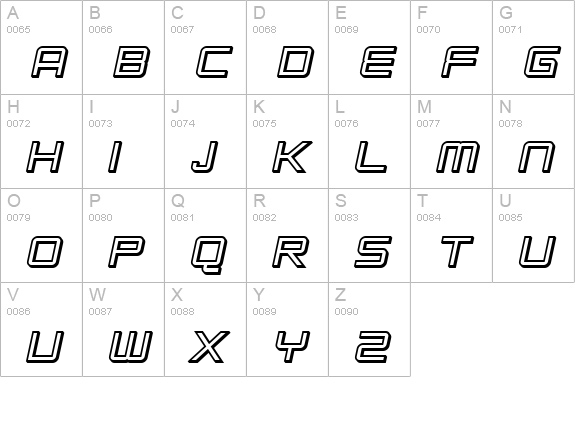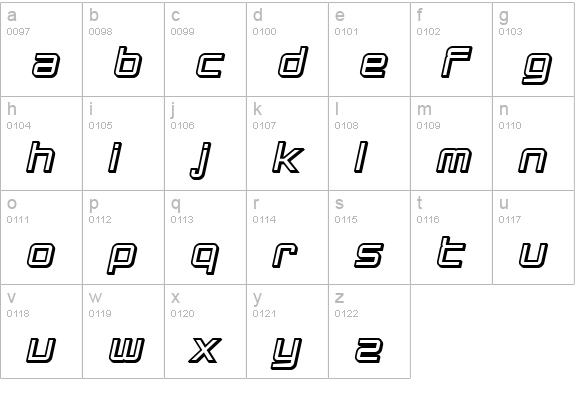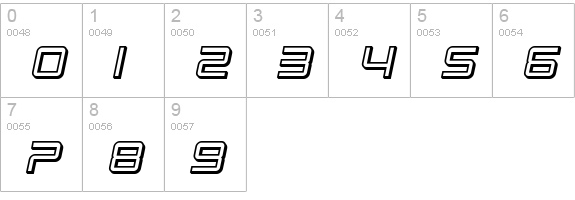
SF Chromium 24 Bold Oblique Font Details
SF Chromium 24 Bold Oblique is a strong, high-contrast, italic variant in the SF typeface family \xE2\x80\x94 well suited to headlines, attention-grabbing titles, and strong calls-to-action.
SF Chromium 24 Bold Oblique is a striking font that exudes power and modernity. With its bold and slanted design, this typeface captures attention and adds a touch of sophistication to any project. Its strong and angular letterforms are perfect for headlines, titles, and logos, making a bold statement that demands to be noticed. This font's sleek and edgy aesthetic is further enhanced by its chrome-like appearance, giving it a futuristic and industrial feel. The sharp angles and clean lines of SF Chromium 24 Bold Oblique create a sense of precision and professionalism, making it an excellent choice for technology-related designs, branding, and advertising. One of the best features of SF Chromium 24 Bold Oblique is that it is available for free download at FontsMarket.com. This means that anyone can access and use this font without any limitations or restrictions. Whether you are a professional designer, a student working on a project, or simply someone looking to add a touch of style to their personal work, SF Chromium 24 Bold Oblique is a font that can elevate your designs to the next level. So go ahead and download SF Chromium 24 Bold Oblique from FontsMarket.com today and unleash your creativity with this powerful and eye-catching font. With its boldness, modernity, and the fact that it is freely available, SF Chromium 24 Bold Oblique is truly a font that stands out from the crowd.